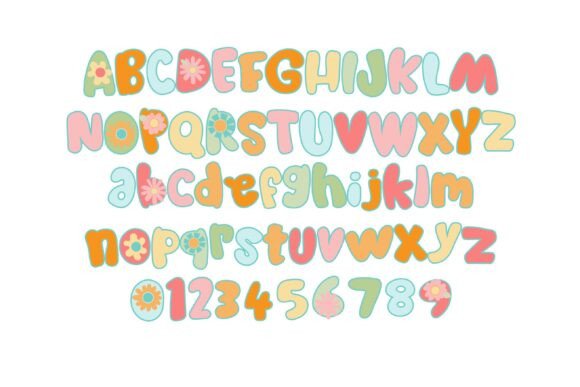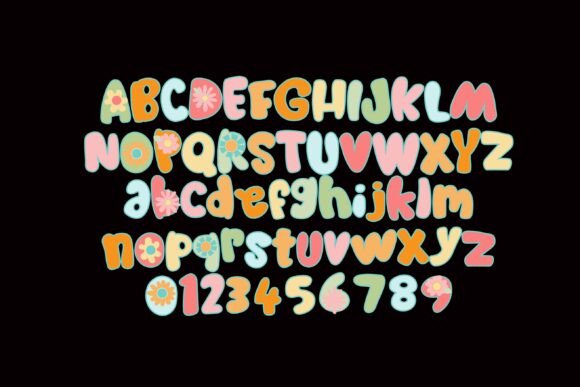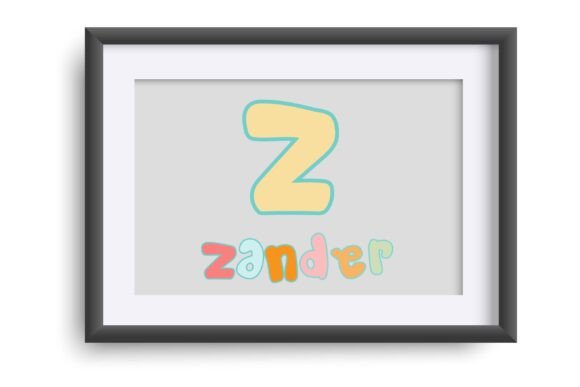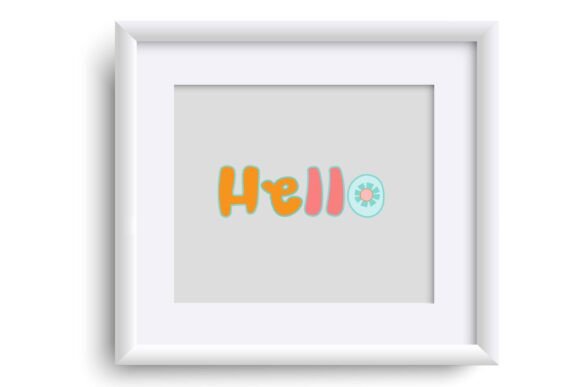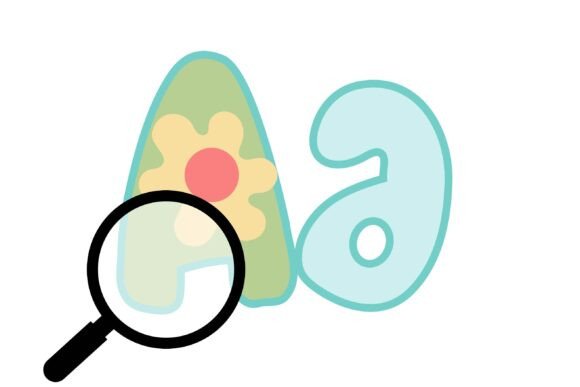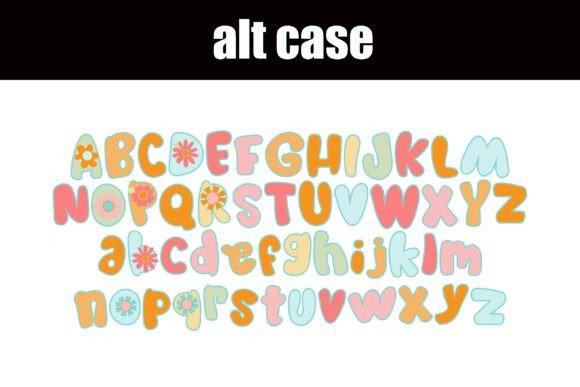
Get Ready to Groove with Your Designs
Who hasn’t experienced that moment of pure creative bliss when a new font sparks an idea and sets your imagination running wild? It’s like stumbling upon the perfect combination of colors, textures, and typography that makes your design sing. For designers, this moment is the holy grail – and it’s exactly what the Feline Groovy Font is designed to evoke. This stunning full-color font is a masterclass in retro style, blending pastel hues with delicate florals to create a look that’s undeniably groovy.
With the Feline Groovy Font, you’ll have access to a range of colors and a bunny and chick icon, all easily accessible through your system or Silhouette’s glyph map. But what truly sets it apart is its versatility – perfect for adding a touch of personality to your designs, from logos to graphics and everything in between. Whether you’re a seasoned pro or just starting out, the Feline Groovy Font is sure to inspire your creativity and take your designs to the next level.
Feline Groovy Font Key Features
- Font Family: Feline Groovy Font is a unique, hand-drawn font designed to evoke the spirit of the 1960s and 1970s.
- Unique Characteristics: Features a distinctive, hand-drawn style with intricate details and flourishes, making it perfect for adding a touch of whimsy and personality to designs.
Feline Groovy Font Review
Overall, I think the Feline Groovy Font is a fun and quirky addition to any design project. It’s perfect for those who want to add a bit of whimsy and personality to their work. ✨
- Unique and eye-catching design that’s sure to grab attention
- Good for projects that need a playful and carefree vibe
- Variety of font weights and styles to choose from
- Works well in both digital and print applications
- May not be suitable for projects that require a more formal or professional tone ⚠️
- Some letters may be difficult to read, especially in smaller sizes
- Lack of support for certain languages may be a limitation for international projects
Overall, I think the Feline Groovy Font is a solid choice for designers who want to add some personality to their work. While it may not be suitable for every project, it’s definitely worth considering for those that need a fun and playful vibe.
Tips for Getting the Most Out of Feline Groovy Font
Use Feline Groovy Font for creative projects, such as:
- Party invitations
- Music festival posters
- Summer-themed graphics
Experiment with different font sizes, colors, and styles to add a playful touch to your designs.
Feline Groovy Font is perfect for:
- Summer-themed designs
- Party and event invitations
- Choose a bold font size for the menu headings.
- Use the Feline Groovy Font for menu item names, such as “Far Out Fries” or “Groovy Grilled Cheese.”
- Combine the font with colorful illustrations of cats and other fun graphics.
- Pair the Feline Groovy Font with a distressed or retro-style background to enhance the funky vibe.
- Use bright, bold colors for the illustrations and graphics to match the playful tone of the font.
- Choose a playful font size for the text overlay on your graphics.
- Use the Feline Groovy Font for captions and hashtags, such as “#FelineFun” or “#GroovyCats.”
- Combine the font with fun cat illustrations and colorful graphics to match your brand’s style.
Pacifico is a beautiful, elegant script font that is perfect for designs that require a touch of sophistication and class. It is ideal for wedding invitations, branding, and other high-end designs.
Pacifico is a more refined and polished alternative to Feline Groovy Font, with a more traditional feel and a wider range of ligatures and swashes. While Feline Groovy Font is more playful and quirky, Pacifico is more understated and sophisticated.
Q: What is the recommended font size for optimal readability with Feline Groovy Font?
The recommended font size for optimal readability with Feline Groovy Font is between 12pt and 18pt, depending on the intended use and display resolution. Experiment with different font sizes to find the best balance between readability and aesthetics.